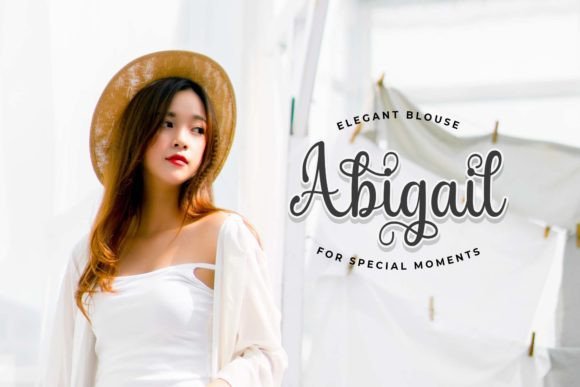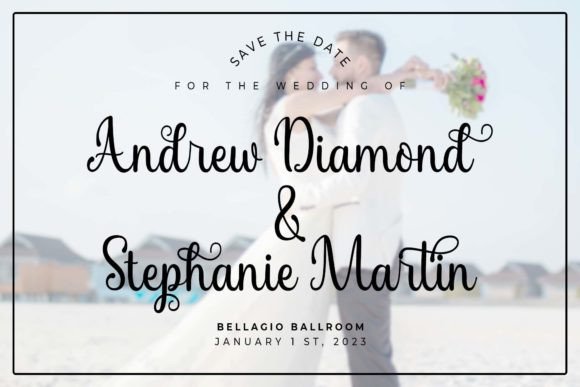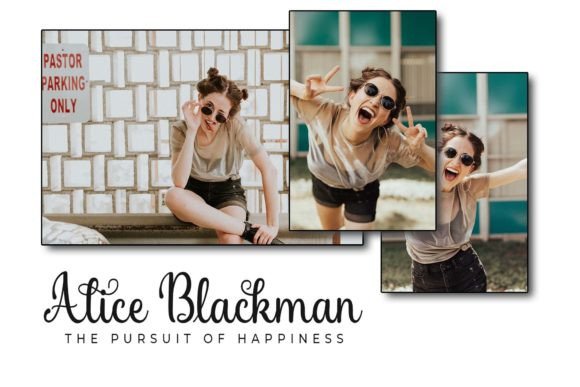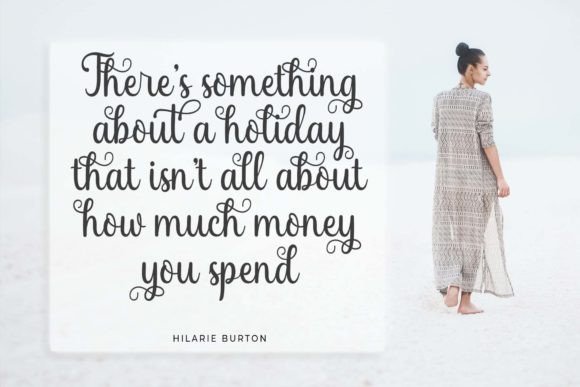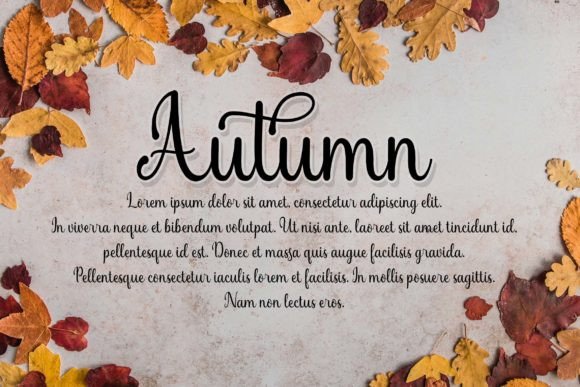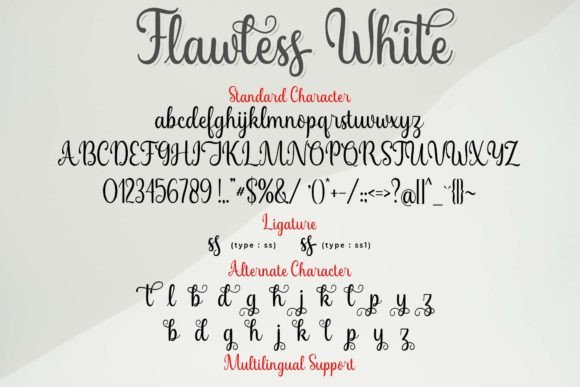
The Quest for the Perfect Font: Discovering Flawless White
I’ll never forget the time I was working on a design project for a luxury brand, and I was struggling to find the perfect font to convey their high-end image. My client was particular about the typography, and I wanted to deliver something that would exceed their expectations. After hours of scouring font websites and trying out different typefaces, I stumbled upon Flawless White. It was love at first sight! ✨
An Honest Review of Flawless White
So, what makes Flawless White so special? Let’s dive into the good stuff and a few quirks I’ve discovered.
- ✨ Gorgeous and elegant script font with a modern look
- ✅ Perfectly suited for a variety of design projects, from luxury branding to wedding invitations
- 🎉 PUA encoded, making it easy to access all the glyphs and swashes
- 💫 Authentic and graceful typography that will elevate your designs
While Flawless White is an amazing font, there are a few things to keep in mind:
- ⚠️ As a script font, it may not be the best choice for body text or long paragraphs
- 🤔 Some users may find the font a bit too ornate for certain design projects
The Story Behind Flawless White
While I couldn’t find any information on the designer’s background, I imagine that the creator of Flawless White was inspired by the world of luxury and elegance. Perhaps they were influenced by the intricate details of high-end fashion or the sophistication of fine jewelry. Whatever the inspiration, Flawless White is a testament to the power of typography to evoke emotions and convey style.
| Is Flawless White suitable for body text? | No, Flawless White is a script font and is best used for headings or titles. For body text, consider a sans-serif or serif font. |
| Is Flawless White available in different weights or styles? | Currently, Flawless White is available as a single font, but you can experiment with different sizes, colors, and effects to create variations. |